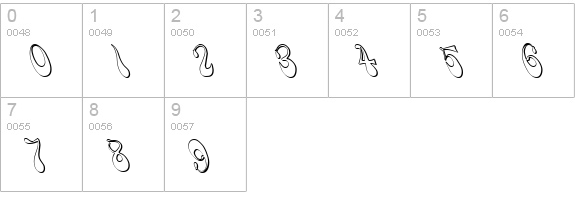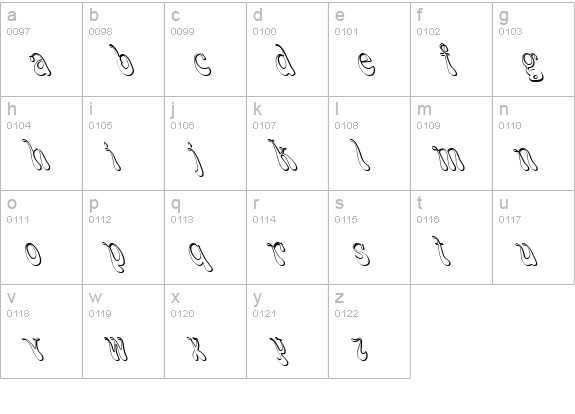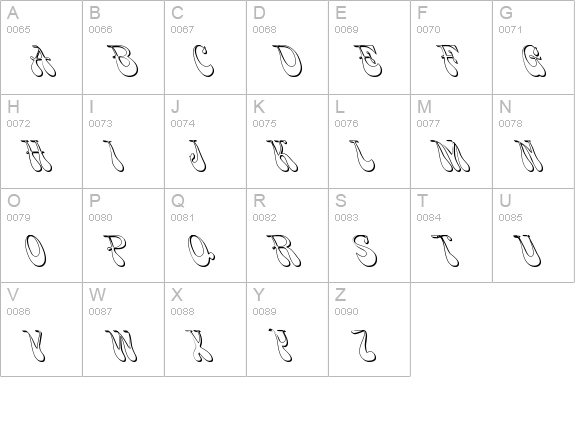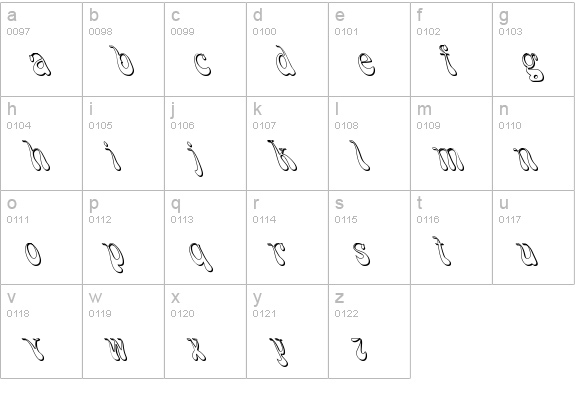
FZ JAZZY 17 3D Font Details
Introducing FZ JAZZY 17 3D font, a stunning and eye-catching typeface that exudes creativity and style. This modern and dynamic font features sleek 3D effects that add depth and dimension to any design project. With its bold and playful appearance, FZ JAZZY 17 3D font is perfect for making a statement and grabbing attention. The best part? This striking font is available for free download at FontsMarket.com, making it accessible to all designers and creatives looking to add a touch of flair to their work. Whether you're designing a poster, logo, or website, FZ JAZZY 17 3D font is sure to make your text pop and stand out from the crowd. Don't miss out on this fantastic opportunity to enhance your designs with FZ JAZZY 17 3D font - download it for free today at FontsMarket.com and let your creativity shine!